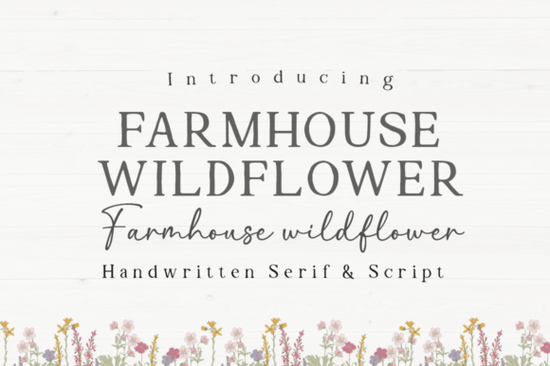
If you're looking for a handwritten serif font that feels warm, natural, and quietly confident like something chalked on a weathered barn door or pressed into handmade stationery the Farmhouse Wildflower Font fits right in. It’s not overly polished or rigid; instead, it leans into gentle imperfections slight variations in stroke weight, subtle wobbles, and organic spacing that make it feel human-made and full of character. That authenticity is why designers and crafters keep coming back to it for projects where warmth matters more than precision.
Unlike many script fonts that rely on dramatic flourishes or tight letter connections, Farmhouse Wildflower balances readability with personality. Its serif elements ground the script, making it easier to read at smaller sizes especially useful for quotes on mugs, tags for handmade soaps, or small-print details on wedding invites. The included alternate characters give you flexibility: switch between slightly bolder or lighter versions of letters like “a” or “g” to add visual rhythm without switching fonts.
The bundle also includes bonus wildflower-themed EPS and SVG files think hand-drawn blossoms, stems, and scattered petals. These aren’t generic clipart. They’re drawn to match the font’s energy: soft-edged, unforced, and cohesive. That means you can build layered designs in Cricut Design Space or Silhouette Studio without worrying about mismatched styles. For print-on-demand sellers, this consistency helps create collections (like a “Spring Farmhouse” line) that feel intentional not pieced together.
Small business owners often choose Farmhouse Wildflower for brand logos when they want to signal approachability and tradition think a local bakery, a herbal apothecary, or a family-run flower farm. It reads as trustworthy but not corporate. Because it’s available in both OTF and TTF formats, it works smoothly in Canva, Adobe Illustrator, and even basic word processors for quick mockups.
Crafters using Cricut or Silhouette appreciate that the SVG files are cleanly layered and grouped by element so you can easily recolor individual flowers or hide stems without breaking the design. No extra vector cleanup needed. And if you’ve ever tried to pair a script font with a supporting sans or serif, you’ll notice how well Farmhouse Wildflower sits alongside other serif fonts with quiet presence, like Spookora, for balanced typographic hierarchy.
Designers building digital assets use the font in Canva templates for Etsy sellers especially those offering editable quote posters or printable wall art. The organic variation means no two lines look exactly alike, which adds charm to mass-produced items. It’s also popular among educators creating classroom decor with a cozy, grounded aesthetic.
This isn’t a one-size-fits-all headline font. It shines best where tone and texture matter: greeting cards, rustic packaging labels, farmhouse-style blog graphics, or personalized baby blankets. It pairs naturally with muted palettes cream, sage, terracotta and holds up well on textured paper or linen fabric prints. If you already use fonts like Farmhouse Wildflower Font or Spookora Font, you’ll notice how each brings a different kind of calm confidence Spookora leans refined and structured, while Farmhouse Wildflower leans relaxed and earthy.
You’ll find it especially helpful if you’ve ever struggled to find a script that doesn’t feel too fancy for a farmers’ market sign or too casual for a boutique invitation suite. It bridges that gap without forcing it.
A quick checklist before downloading
- ✅ You need a script + serif combo that stays legible at 14–24 pt (great for product tags or small-format prints)
- ✅ You want matching floral SVGs not just fonts to complete your design system
- ✅ You’re designing for physical products (T-shirts, wood signs, embroidery) or digital templates where organic texture adds value
- ✅ You prefer fonts with built-in alternates and OpenType features not just a single static style
- ✅ You’re already using or exploring similar styles like handwritten serif fonts with rustic warmth
If those match your needs, Farmhouse Wildflower is ready to slot in without overcomplicating your workflow. It won’t replace every script in your collection but it might become the one you reach for first when you want something that feels like home.